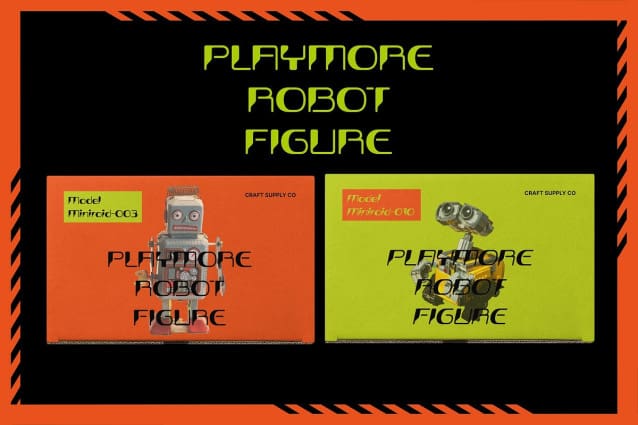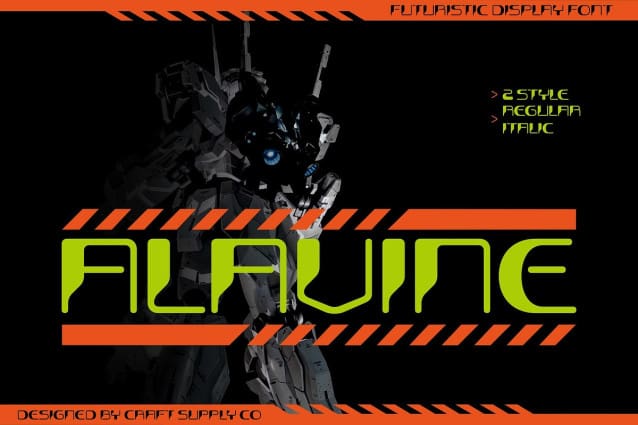
Alavine Futuristic Font
Alavine Futuristic Font. Inspired by Y2K Robots Alavine draws inspiration from the futuristic aesthetics of Y2K-era robots, featuring sleek lines and geometric shapes reminiscent of advanced technology.
Sleek and Modern Design With its sleek and modern design, This font exudes a sense of innovation and sophistication, making it perfect for contemporary display purposes.
Distinctive Features This font stands out with its unique features, including sharp edges and futuristic curves, evoking the essence of cutting-edge technology and robotic precision.
Versatile Application From tech-themed branding to futuristic poster designs, This font offers versatility in application, adding a touch of futuristic flair to any project.
Embrace the Future This font is more than just a font; it’s a gateway to the future. With its Y2K-inspired design and sleek aesthetics, it invites you to embrace the possibilities of tomorrow and infuse your designs with a sense of futuristic charm. Step into the future with This font and let your creativity soar.